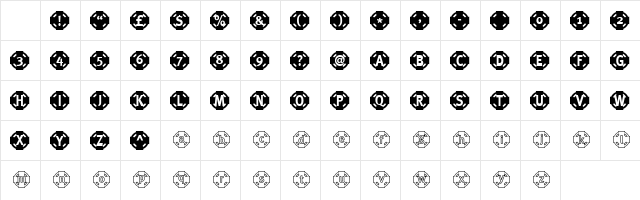
Complete Quick, hurry up and die black glyph index. Displaying only characters natively supported by Quick, hurry up and die black font.
Quick, hurry up and die is a composed and adaptable typeface that performs quietly and consistently across a wide range of design contexts.